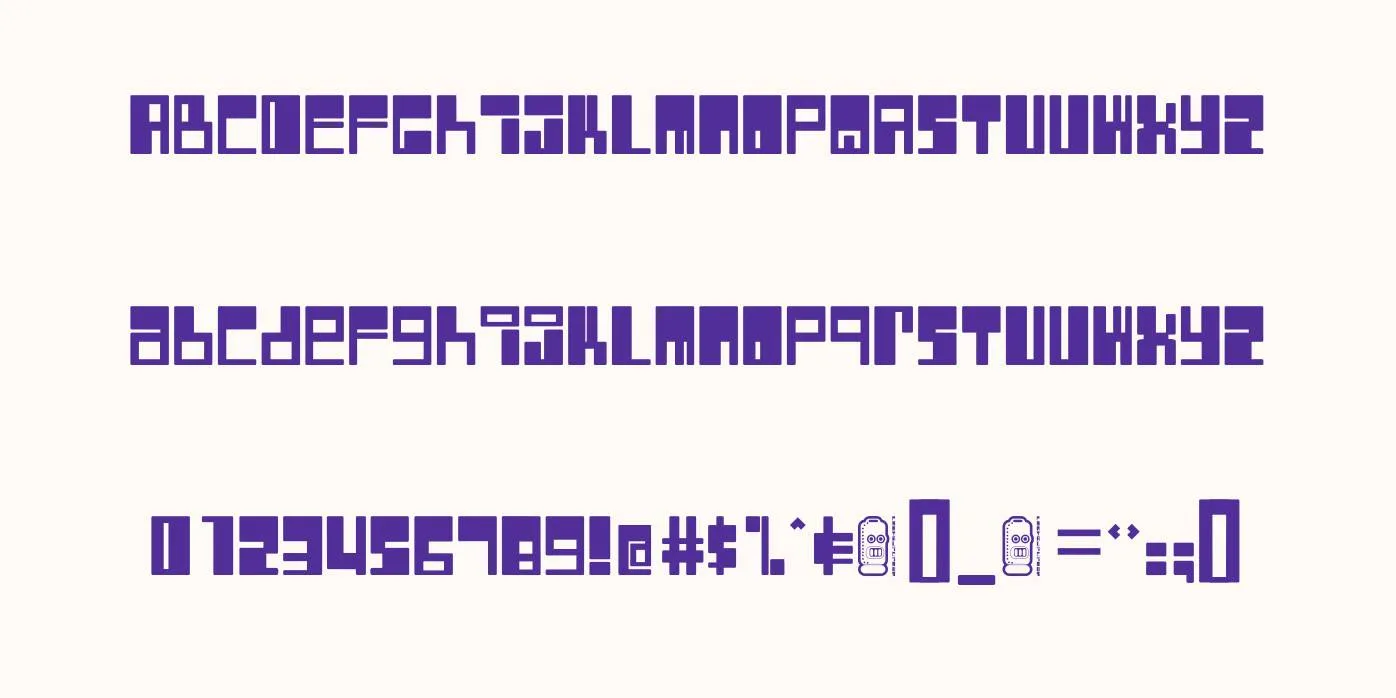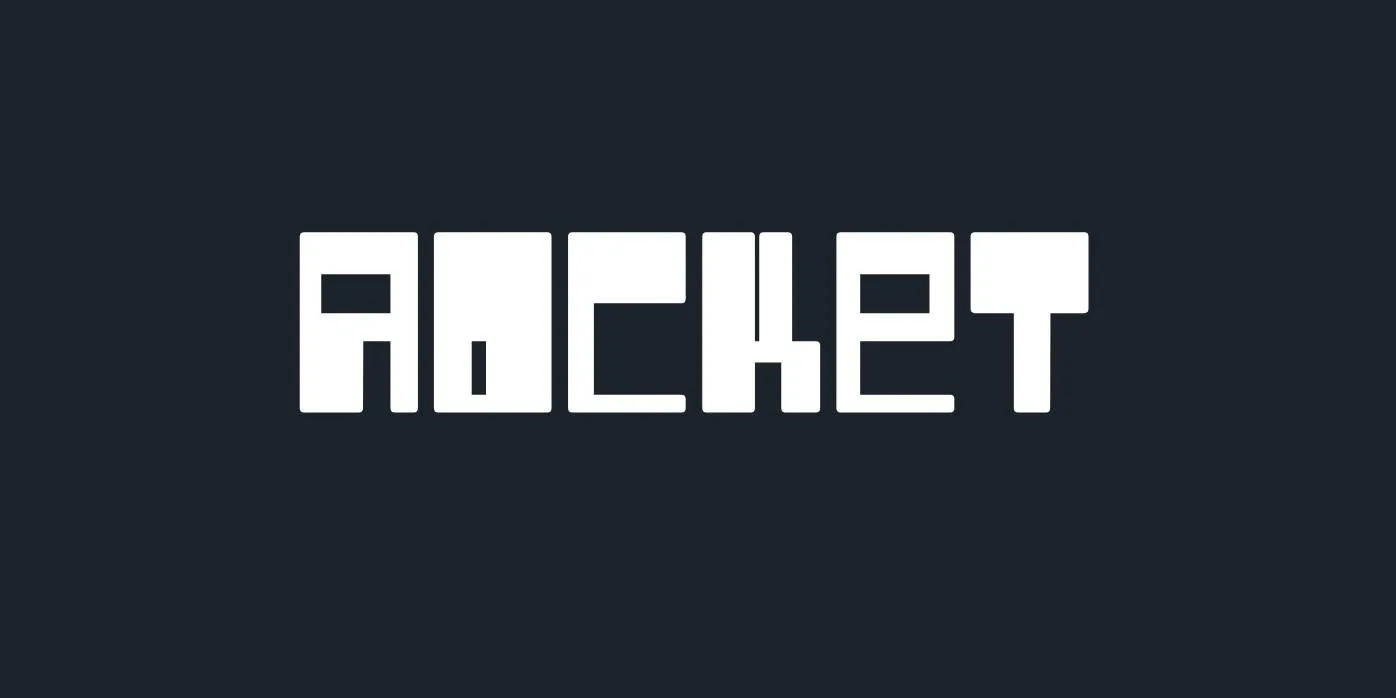
Rocket Font
The Rocket Font. This font was designed by Fontalicious. It is a techno font and can be used for different purposes. It contains 213 characters, 184 glyphs, and 1000 units per Em.
The weight of the font is Bold and its width is Medium (normal). The pattern nature of this font is regular and its pitch is not monospaced. You can also use it for pairing with other fonts like datacron font to give a more attractive look to your projects. Usage It is a very unique all-caps font with a bold look.
It can give your project a very attractive and amazing look. This font has characters, symbols, numbers, capital letters, punctuations, and special characters, which can give your projects a very nice look. It can be used for branding purposes. Because of its clean look, you can make headlines by using it.